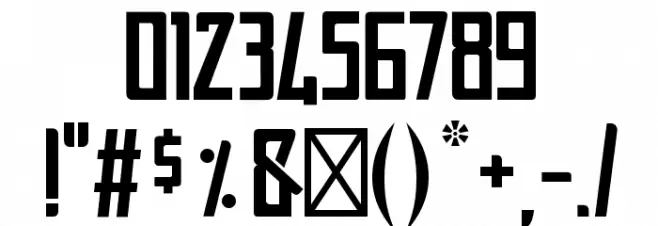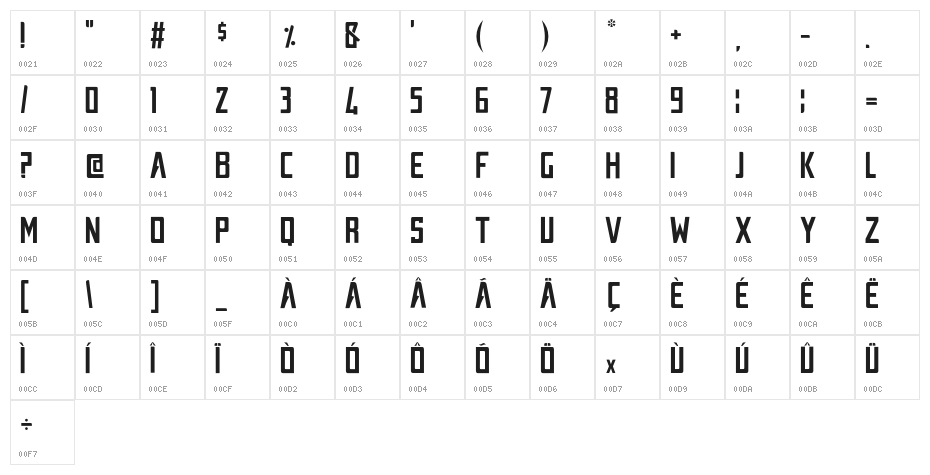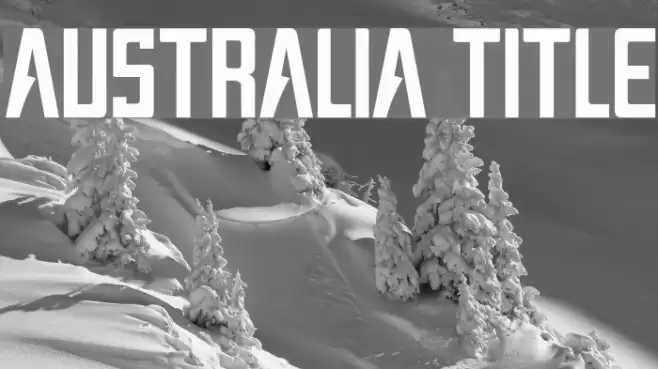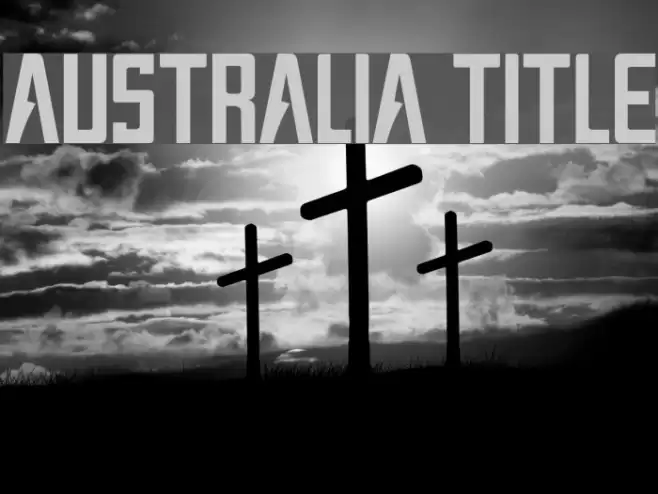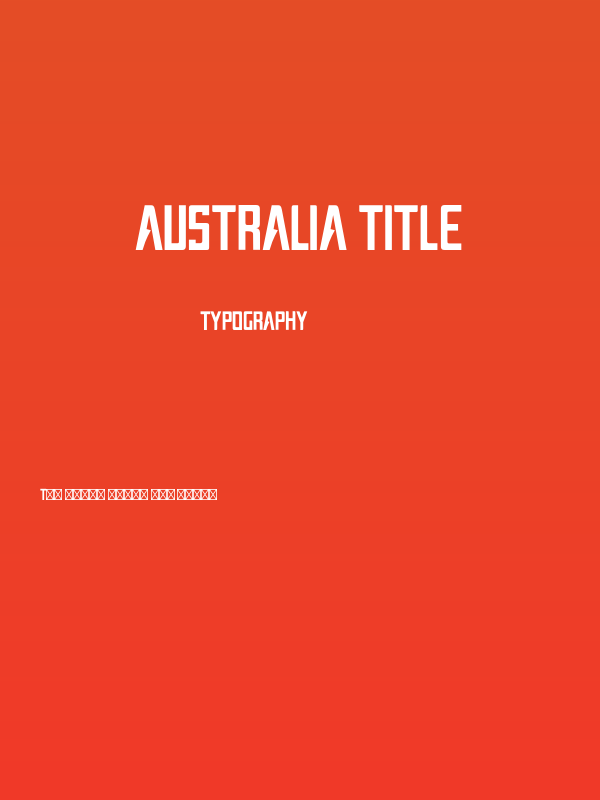
AUSTRALIA TITLE Font
AUSTRALIA TITLE Description
This font features a bold, geometric design with sharp angles and a strong presence. The uppercase letters are uniform in height, creating a cohesive and structured appearance. The numerals and special characters maintain the same bold style, ensuring consistency throughout. The font's angular design gives it a modern and edgy feel, making it suitable for attention-grabbing headlines and titles. Its distinct style is characterized by a lack of curves, emphasizing straight lines and sharp edges. This font is ideal for projects that require a strong visual impact.
| Proposed Projects | Ideal for headlines, posters, branding, and any project requiring a strong visual impact. |